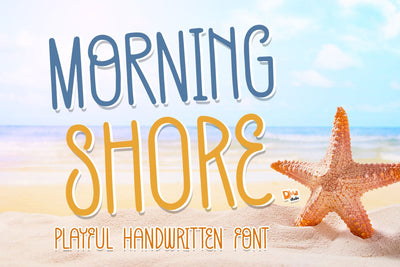
Morning Shore
Morning Shore – Playful Handwriting Font
Morning Shore is a cheerful and carefree handwriting font that brings coastal sunshine to your designs. With its bouncy letters and relaxed strokes, this font captures the spirit of a bright morning by the sea—ideal for lighthearted, creative projects that need a fresh and friendly vibe. Whether you're designing social media content, travel journals, or summer branding, Morning Shore adds an easygoing charm.
Playful & Bouncy Style: Light, energetic strokes with natural handwritten motion.
Coastal Vibe: Inspired by beach days, sea breezes, and sunny mornings.
Uppercase & Lowercase: Full character set with clean, legible shapes.
Ideal For: Summer quotes, travel blogs, lifestyle branding, greeting cards, social media content, and handmade packaging.